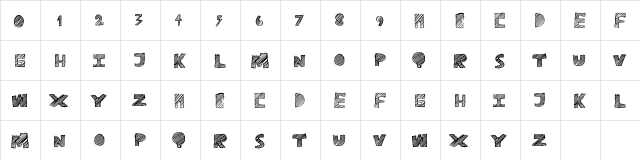
RaveTime Regular
Design Context for RaveTime Typeface
RaveTime is a composed and adaptable typeface that performs quietly and consistently across a wide range of design contexts.